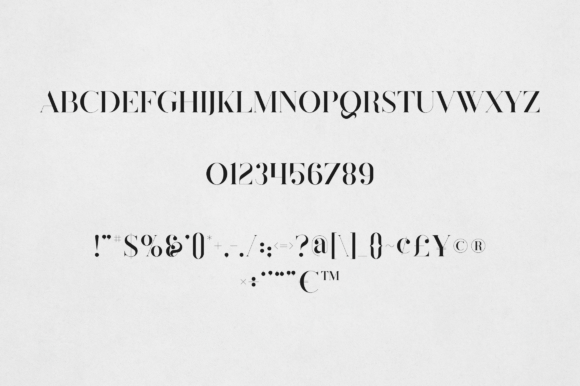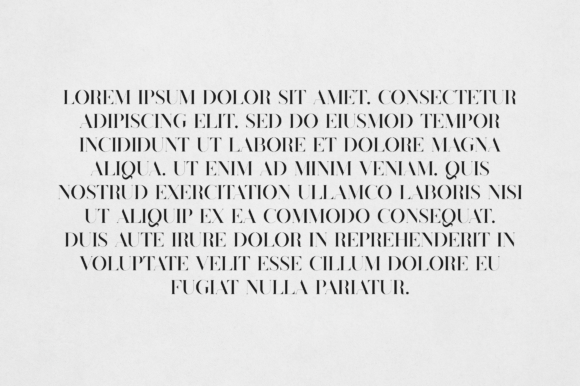
Introducing Felicity Font: Elevate Your Typography with Elegance and Versatility
Are you tired of using the same old fonts for your designs? Look no further! Felicity Font is here to revolutionize your typography with its elegant and versatile serif design. This stunning font is perfect for designers and crafters who want to add a touch of sophistication and uniqueness to their work. Whether you’re creating a logo, branding, headline, or plain text, Felicity Font is sure to enchant your audience.
What Makes Felicity Font So Special?
Felicity Font is a serif font that boasts a classic and timeless design, making it perfect for a wide range of applications. Its elegant lines and curves give it a sophisticated feel that’s sure to elevate your typography. The font’s versatility is one of its standout features, allowing you to use it for everything from elegant headlines to body text.
One of the key benefits of Felicity Font is its ability to add a touch of personality to your designs. The font’s unique character and charm make it perfect for designers who want to create something truly special. Whether you’re working on a logo, brochure, or website, Felicity Font is sure to make your typography stand out.
Key Features of Felicity Font
• Elegant and Versatile Design: Felicity Font features a classic serif design that’s both elegant and versatile.
• Unique Character: The font’s unique lines and curves give it a distinctive charm that’s sure to set it apart from other fonts.
• Wide Range of Applications: Felicity Font is perfect for a wide range of applications, including logos, branding, headlines, and body text.
• Easy to Read: The font’s clear and legible design makes it easy to read, even at small sizes.
How to Use Felicity Font in Your Designs
Felicity Font is incredibly easy to use and can be incorporated into your designs in a variety of ways. Here are a few ideas to get you started:
• Logos and Branding: Use Felicity Font to create a unique and memorable logo that will set your brand apart.
• Headlines and Titles: Add a touch of elegance to your headlines and titles with Felicity Font’s sophisticated design.
• Body Text: Use Felicity Font for body text to add a touch of personality and sophistication to your designs.
• Digital and Print Materials: Felicity Font is perfect for both digital and print materials, including brochures, flyers, and website content.
Why Choose Felicity Font?
With so many fonts to choose from, why should you choose Felicity Font? Here are just a few reasons:
• Unique Design: Felicity Font features a unique and distinctive design that’s sure to set it apart from other fonts.
• Elegant and Versatile: The font’s elegant and versatile design makes it perfect for a wide range of applications.
• Easy to Read: Felicity Font is clear and legible, making it easy to read even at small sizes.
• High-Quality: Felicity Font is a high-quality font that’s designed to deliver exceptional results.
In conclusion, Felicity Font is a stunning serif font that’s perfect for designers and crafters who want to add a touch of elegance and sophistication to their work. With its unique character, versatile design, and ease of use, Felicity Font is sure to become a go-to font for anyone looking to elevate their typography.